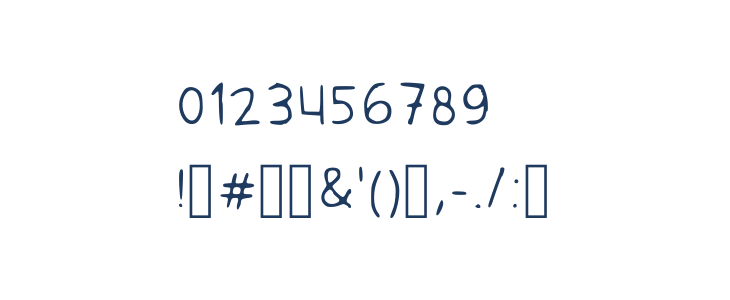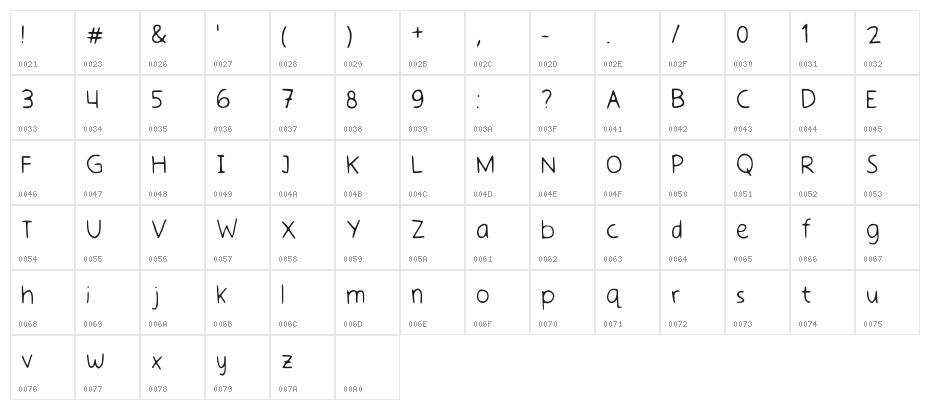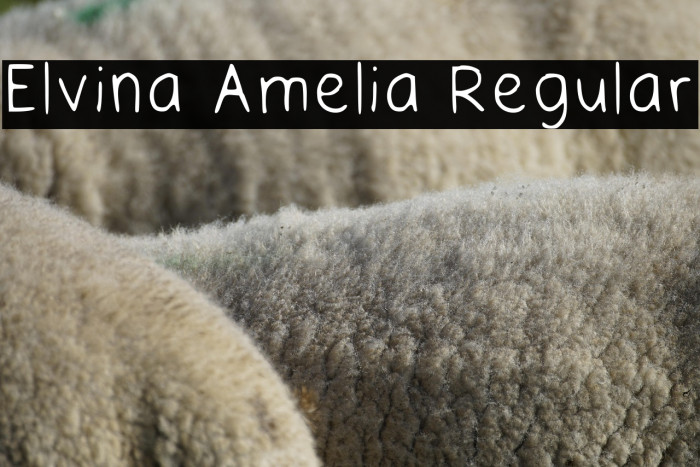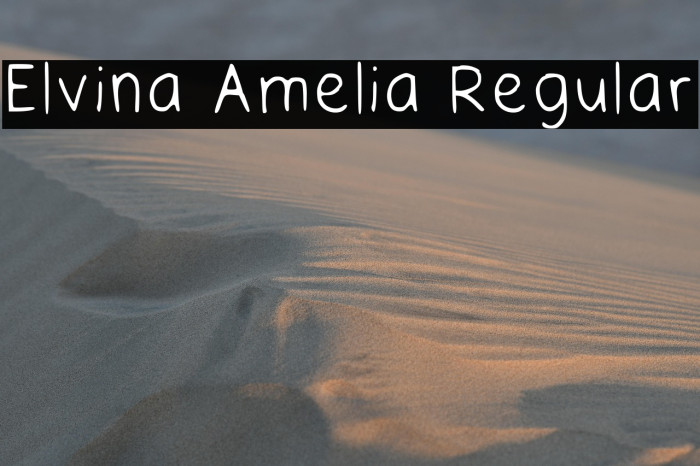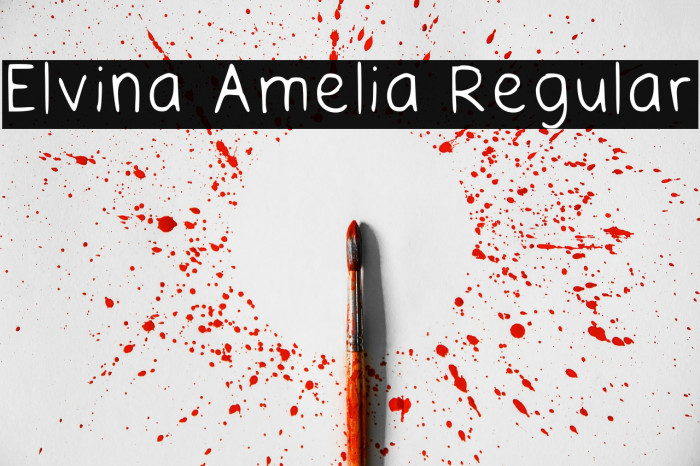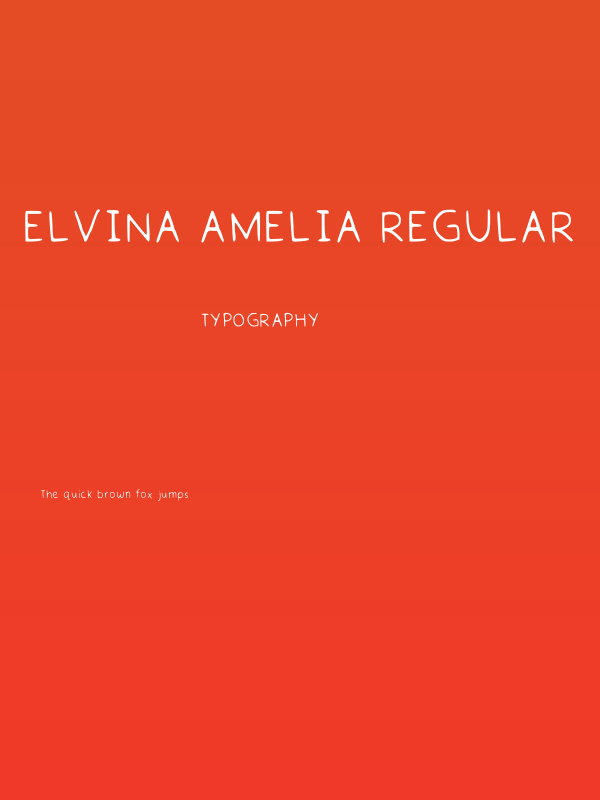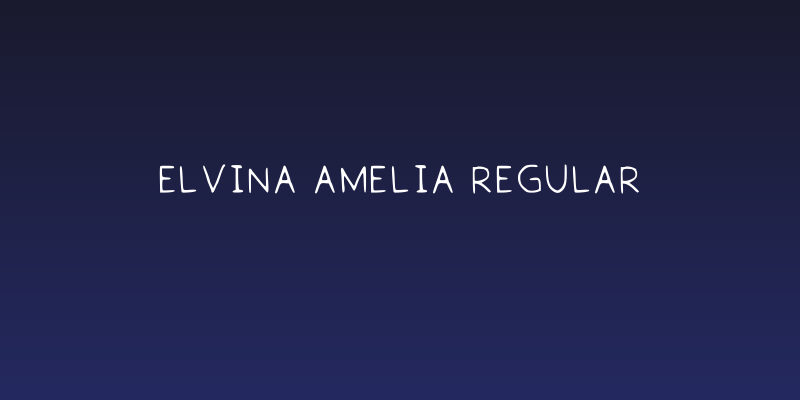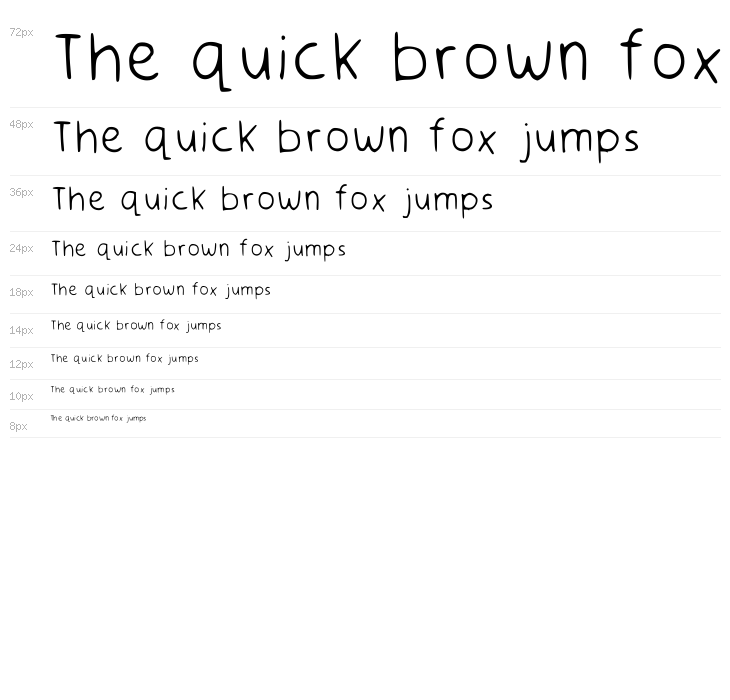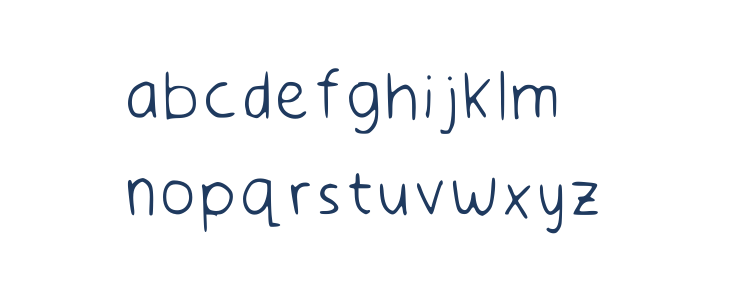
Elvina Amelia Regular Font
Elvina Amelia Regular Description
This font exhibits a playful and informal handwritten style, characterized by its irregular strokes and slightly uneven baseline. The letters have a casual, friendly appearance, making them suitable for projects that require a personal touch. The uppercase and lowercase letters maintain a consistent style, with rounded edges and a slight tilt, enhancing the font's approachable nature. The numerals and special characters follow the same design principles, ensuring a cohesive look across all text elements. This font is versatile and can be used in various creative projects that aim to convey warmth and approachability.
| Proposed Projects | Ideal for greeting cards, children's books, personal blogs, and informal branding. |